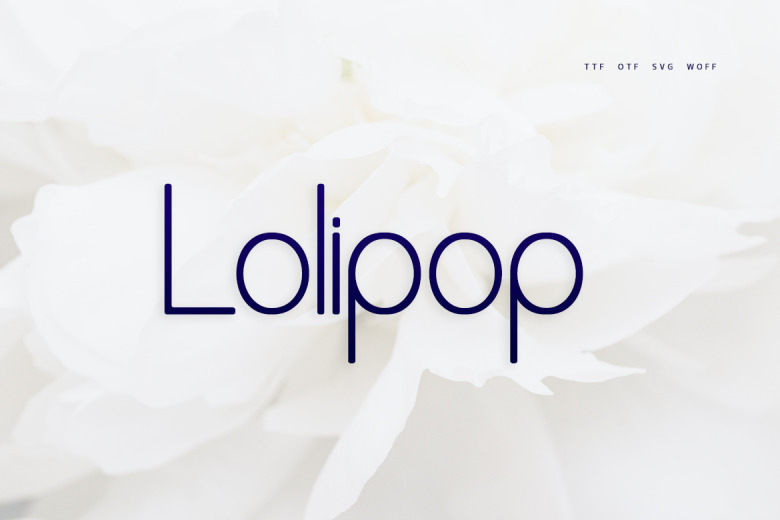
Lolipop Font
Usage guidelines Above is Lollipop, the sans serif is minimal and friendly. Get inspired by this font and use it to make your designs stand out! Below Lollipop Font can be used easily on design them, with branding projects, Logo design, Clothing Branding, product packaging, magazine headers. Or simply as a stylish text overlay to any background image.
Lolipop Sans Serif Font